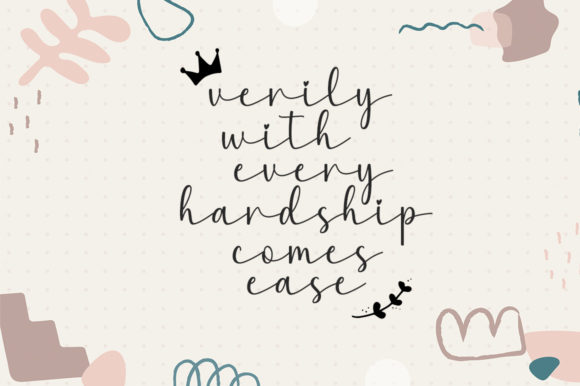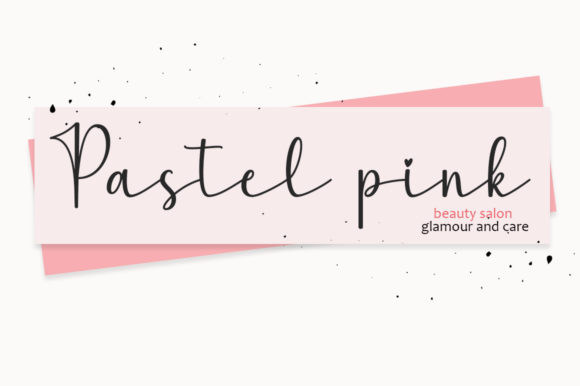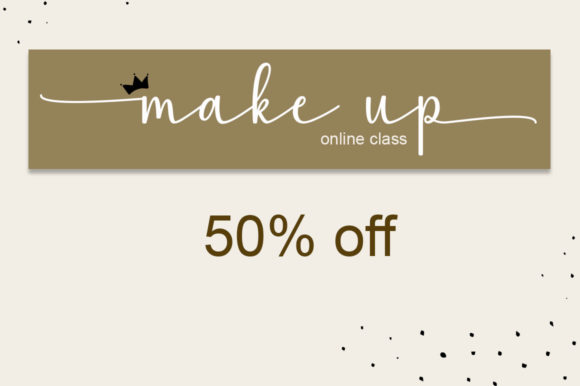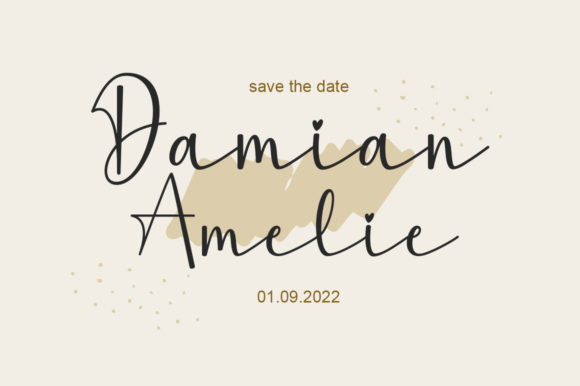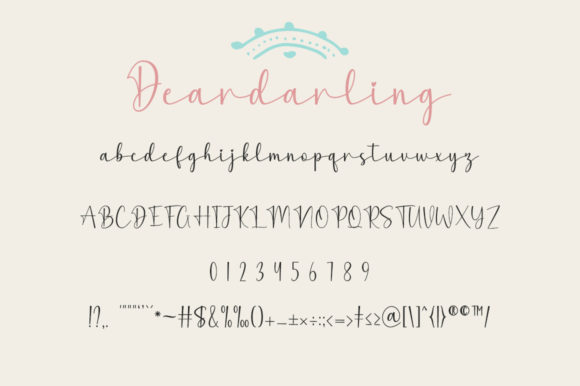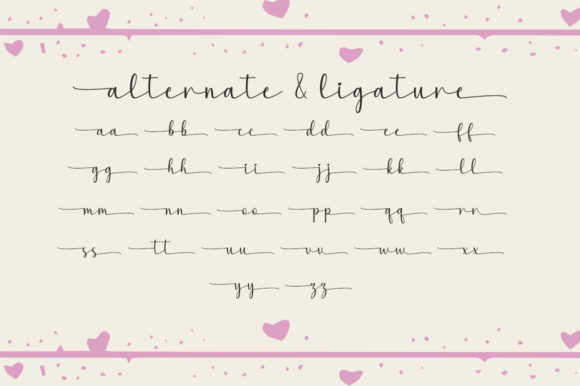
Discover the Elegance of Dear Darling Font: A Delicate Script Font for Your Creative Projects
Are you a designer, crafter, or DIY enthusiast looking for a font that adds a touch of elegance and sophistication to your creations? Look no further than the Dear Darling Font, a beautiful, thin lettered, and delicate script font that’s perfect for a variety of projects. In this article, we’ll explore the features and benefits of Dear Darling Font, and how it can elevate your designs to the next level.
What is Dear Darling Font?
Dear Darling Font is a stunning script font characterized by its thin, delicate letters and elegant strokes. Its refined and sophisticated design makes it ideal for use in a range of creative projects, from digital designs to handmade crafts. Whether you’re creating invitations, greeting cards, posters, or social media graphics, Dear Darling Font is sure to add a touch of class and sophistication.
PUA Encoding for Easy Access to Glyphs and Ligatures
One of the standout features of Dear Darling Font is its PUA (Private Use Area) encoding. This means that you can access all of the font’s amazing glyphs and ligatures with ease, giving you even more creative possibilities. With PUA encoding, you can unlock the full potential of Dear Darling Font and experiment with different combinations of letters, symbols, and swashes to create unique and eye-catching designs.
Features and Benefits of Dear Darling Font
So, what makes Dear Darling Font so special? Here are just a few of its key features and benefits:
- Delicate and elegant design: Dear Darling Font features a beautiful, thin lettered design that’s perfect for creating sophisticated and refined designs.
- PUA encoded: With PUA encoding, you can access all of the font’s glyphs and ligatures, giving you endless creative possibilities.
- Versatile: This font is perfect for a range of projects, from digital designs to handmade crafts.
- High-quality: Dear Darling Font is a high-quality font that’s designed to produce crisp, clear results, even at small sizes.
How to Use Dear Darling Font in Your Projects
So, how can you use Dear Darling Font in your creative projects? Here are a few ideas to get you started:
- Invitations and greeting cards: Add a touch of elegance to your invitations and greeting cards with Dear Darling Font.
- Posters and flyers: Use Dear Darling Font to create eye-catching posters and flyers that showcase your brand or message.
- Social media graphics: Add a touch of sophistication to your social media graphics with Dear Darling Font.
- Handmade crafts: Use Dear Darling Font to add a personal touch to your handmade crafts, such as journals, planners, and gift tags.
Tips and Tricks for Getting the Most Out of Dear Darling Font
Here are a few tips and tricks for getting the most out of Dear Darling Font:
- Experiment with different colors and textures: Don’t be afraid to try out different colors and textures with Dear Darling Font.
- Mix and match with other fonts: Combine Dear Darling Font with other fonts to create unique and interesting effects.
- Use the font’s glyphs and ligatures: Take advantage of Dear Darling Font’s PUA encoding to access its glyphs and ligatures.
| Font Name | Dear Darling Font |
| Author | jauzadesign |
In conclusion, Dear Darling Font is a beautiful, delicate script font that’s perfect for designers, crafters, and DIY enthusiasts looking to add a touch of elegance and sophistication to their creative projects. With its PUA encoding, easy-to-use design, and versatile features, Dear Darling Font is a must-have for anyone looking to elevate their designs to the next level. So why wait? Download Dear Darling Font today and discover the magic for yourself!